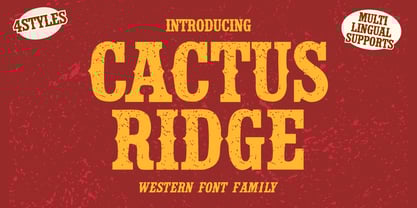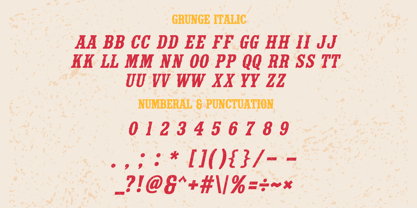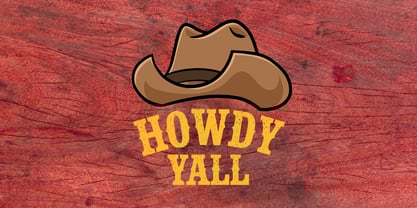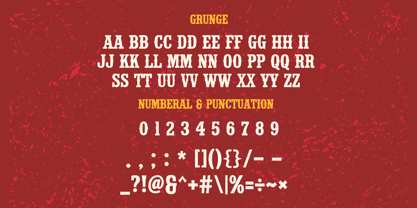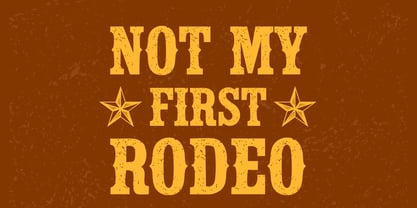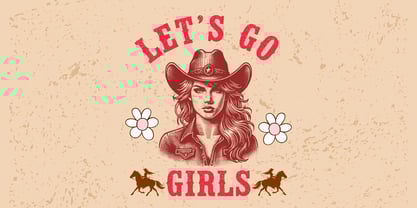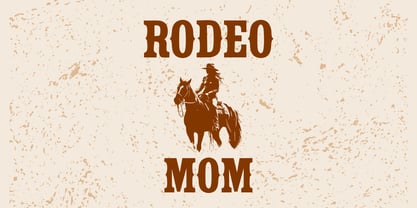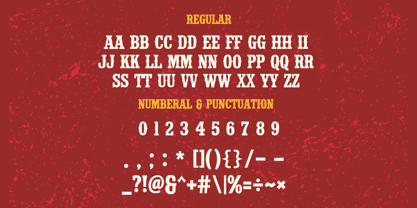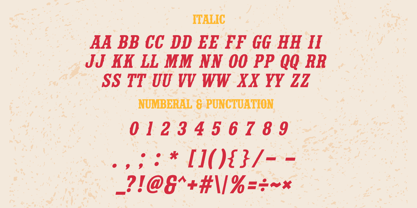
Cactus Ridge
by Brown Cupple Typeface
The Cactus Ridge Font Family was designed by Nattha​ Potchanad​ and published by Brown Cupple Typeface. Cactus Ridge contains 4 styles and family package options. More about this family
Cactus Ridge is a Western display font. It embodies playfulness and authenticity and is the perfect choice for all your favorite projects, including blog posts, logos, branding, ads, invitations, greeting cards, planners, photo albums, decorations, and more. Add it to any of your designs, and enjoy the results!
Designers: Nattha​ Potchanad​
Foundry: Brown Cupple Typeface